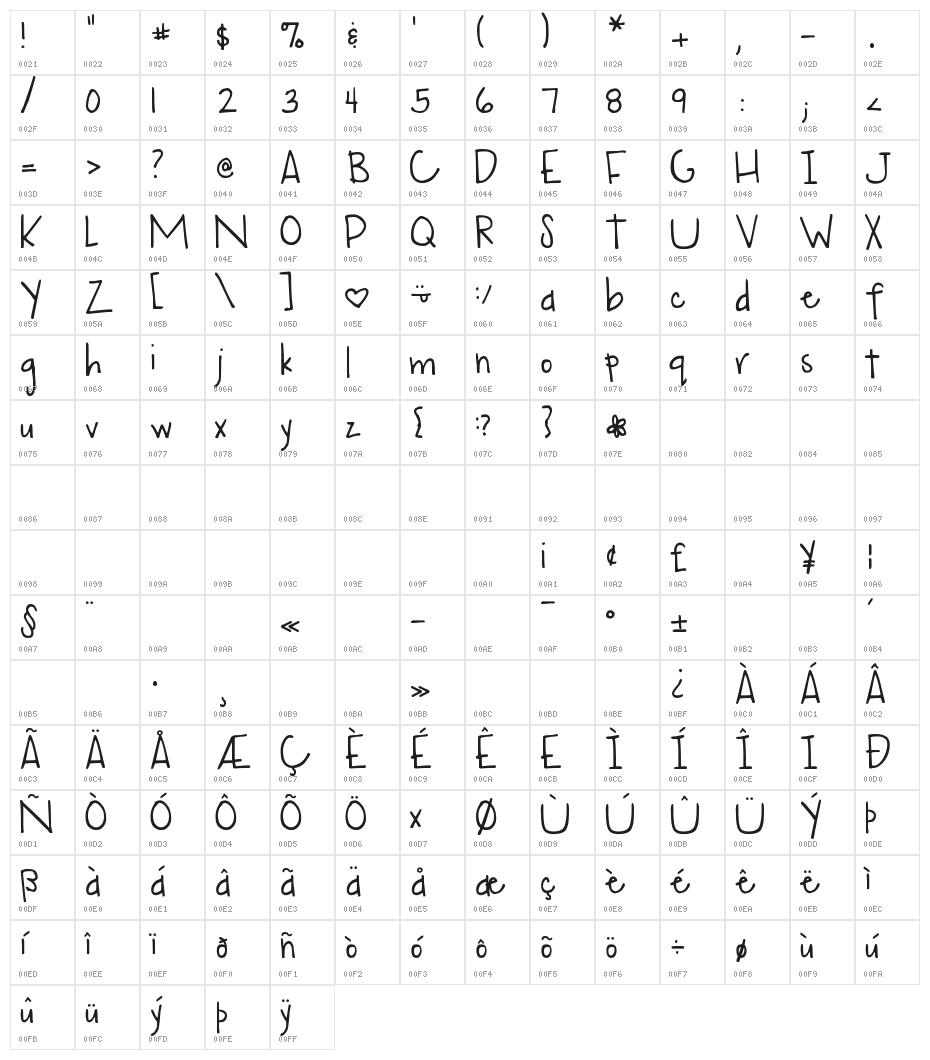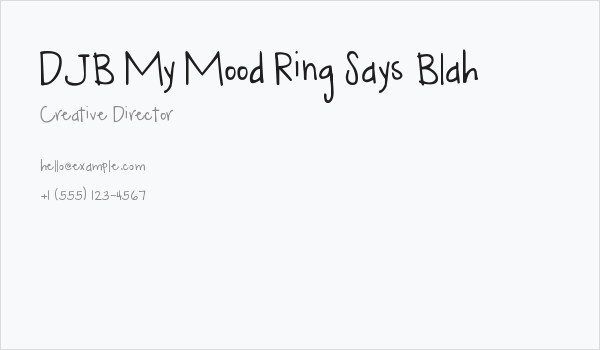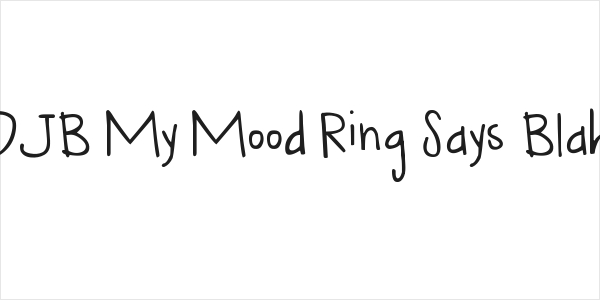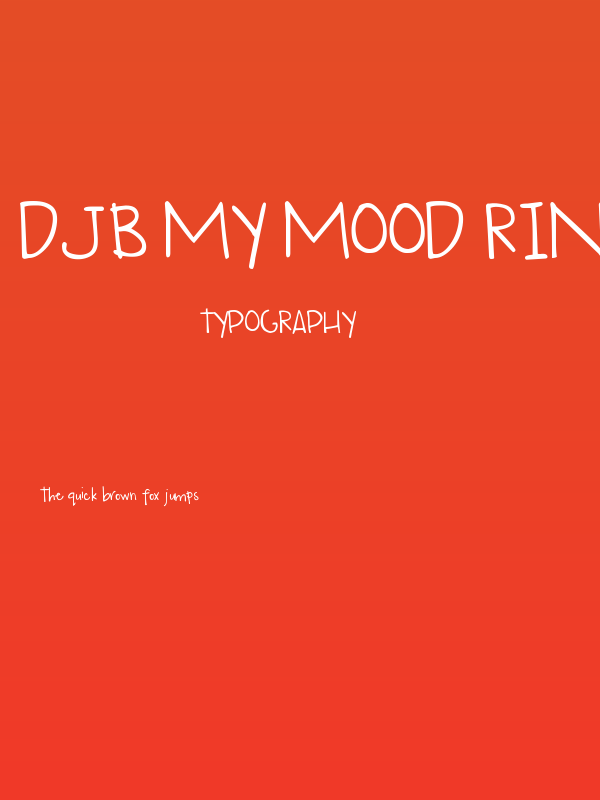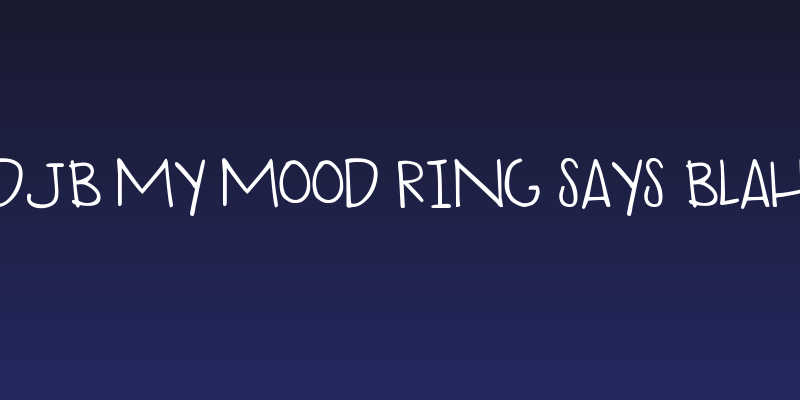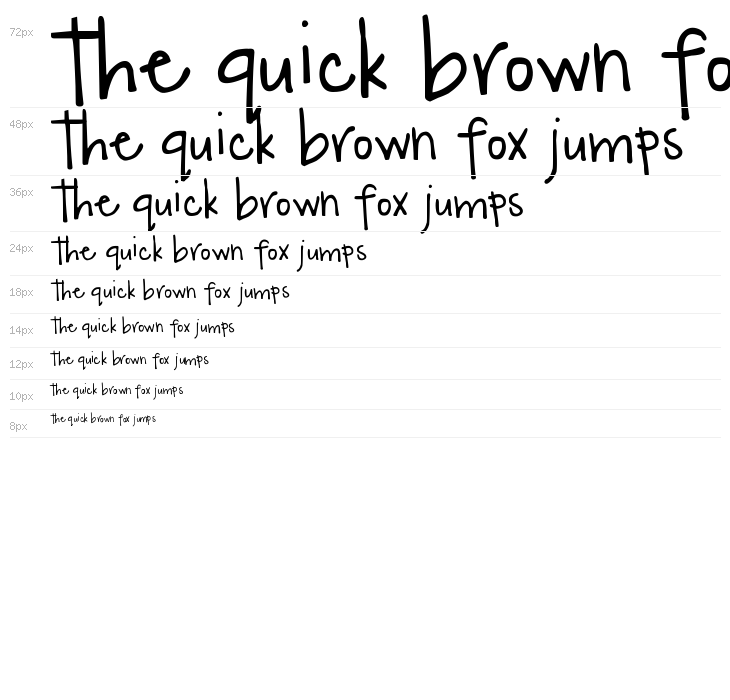
DJB My Mood Ring Says Blah Font
DJB My Mood Ring Says Blah Description
This playful and casual handwritten font features a whimsical style with irregular strokes and a friendly appearance. The letters are slightly tilted, giving it a dynamic and informal feel. The uppercase and lowercase letters maintain a consistent flow, while the numbers and special characters complement the overall style. The font's design is approachable and easy to read, making it suitable for projects that require a personal touch. Its unique character spacing adds to its charm, providing a relaxed and inviting look.
| Use Case | Headlines, Informal text, Personal projects |
| Proposed Projects | Ideal for greeting cards, children's books, casual invitations, and personal blogs. |